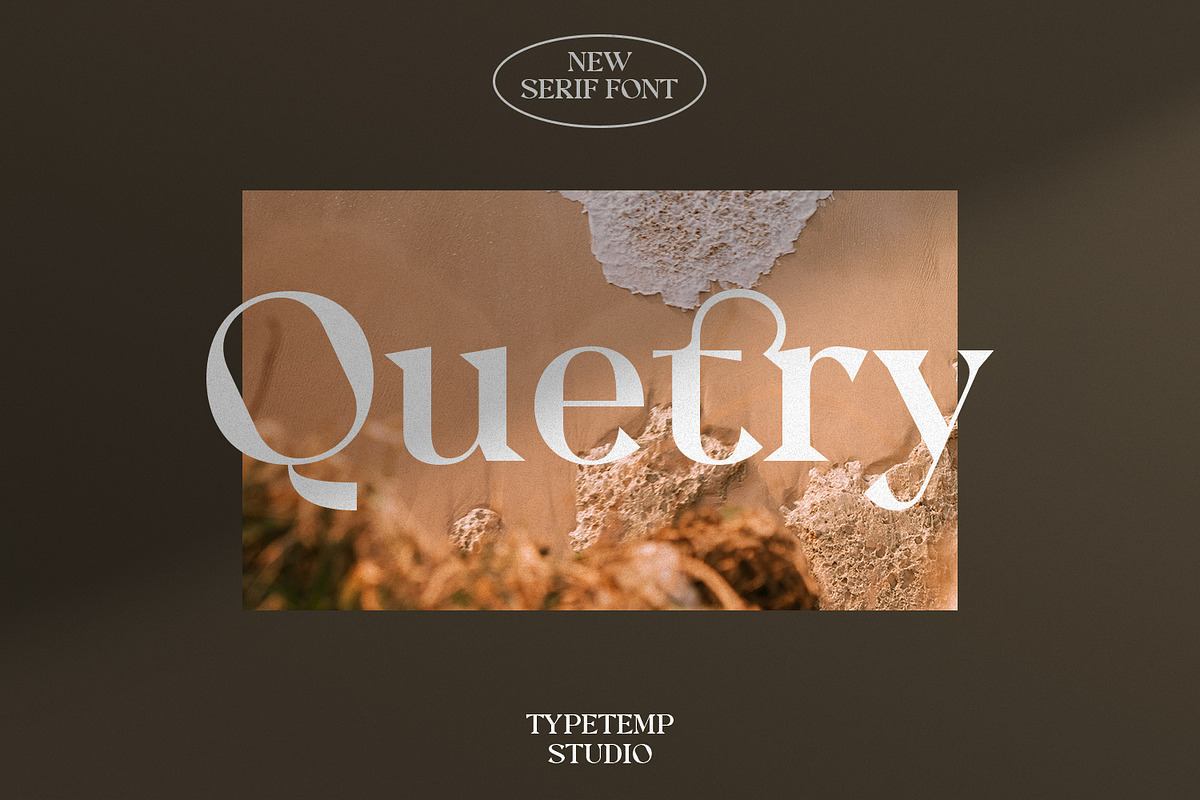
Please note, to use this font for commercial purposes, you must purchase the full version. Quetry is a sophisticated and stylish serif display font that adds a bold and elegant touch to your designs. With its unique and contemporary letterforms, this font is perfect for creating high-impact logos, branding, editorial designs, posters, and more. Whether you're designing for a luxury brand, an event, or a modern campaign, Quetry brings a refined and professional feel to your work. Test it out and enjoy free download access for personal use. Experience the modern elegance of Quetry Serif Display Font Free Download before purchasing the commercial license. Add a polished, bold touch to your designs with Quetry.